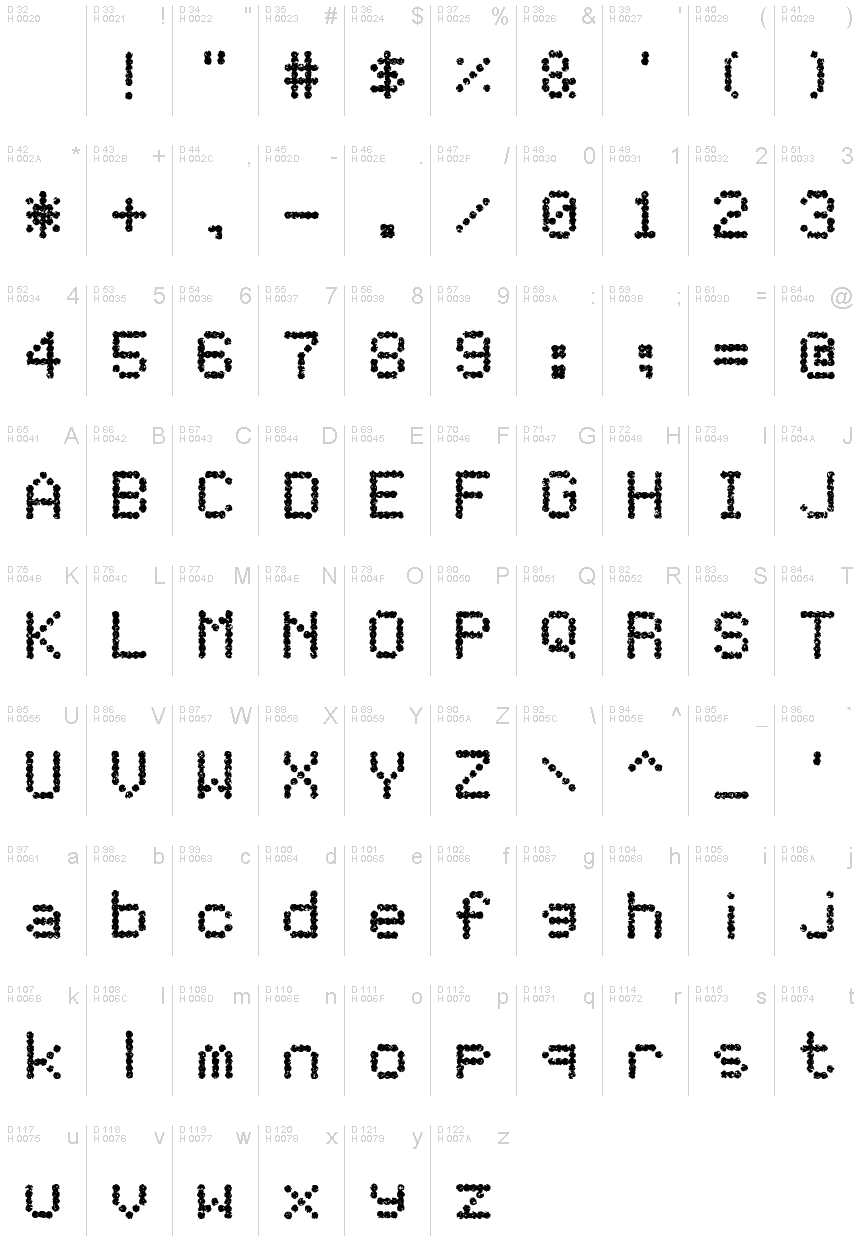
Shelf Life
Shelf Life is an eroded digital font designed by Anthony Robinson. Its light weight and display style make it suitable for projects such as crafting bold headlines, creating eye-catching logos, and designing unique posters.